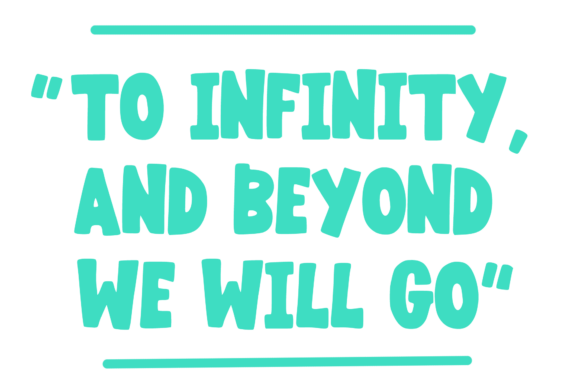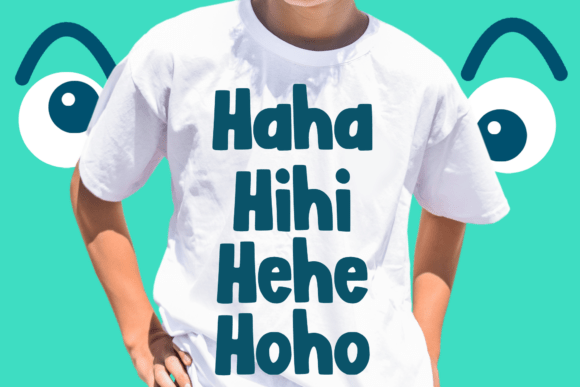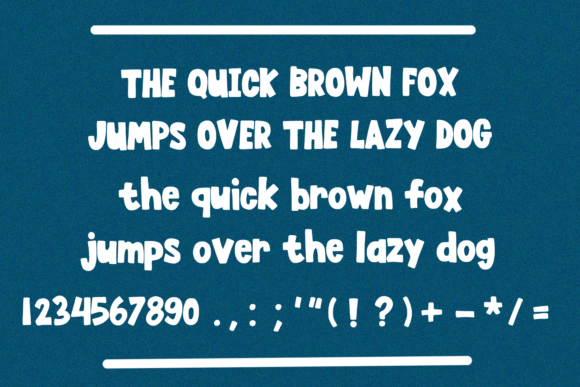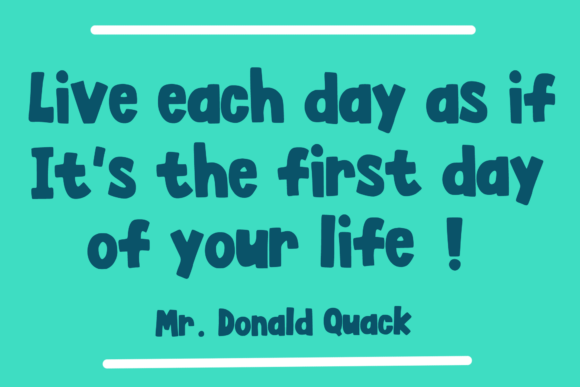
Introducing Chunky Joyful Font: The Ultimate Comic Handwritten Font for Designers and Crafters
Are you tired of using the same old fonts in your designs? Do you want to add a touch of playfulness and fun to your projects? Look no further than Chunky Joyful Font, a bold comic handwritten font that’s inspired by comics and cartoons. This exciting new font is perfect for designers and crafters who want to take their work to the next level.
What is Chunky Joyful Font?
Chunky Joyful Font is a fun, playful bold comic handwritten font that’s designed to bring a smile to your face. With its chunky, bold lines and joyful vibe, this font is perfect for creating eye-catching designs that grab attention. Whether you’re working on a sticker design, t-shirt design, merchandise design, logo design, or book cover, Chunky Joyful Font is the perfect choice.
Key Features of Chunky Joyful Font
- Bold and Chunky Lines: Chunky Joyful Font features bold, chunky lines that give it a playful and fun vibe.
- Comic Handwritten Style: Inspired by comics and cartoons, this font has a unique handwritten style that’s perfect for creating engaging designs.
- Versatile: Chunky Joyful Font can be used for a wide range of design projects, from stickers and t-shirt designs to logo designs and book covers.
- Easy to Read: Despite its bold and chunky lines, Chunky Joyful Font is easy to read, making it perfect for use in a variety of design projects.
Design Ideas with Chunky Joyful Font
So, what can you create with Chunky Joyful Font? The possibilities are endless! Here are some design ideas to get you started:
- Sticker Designs: Create fun and playful stickers with Chunky Joyful Font that are perfect for laptops, water bottles, or any other surface.
- T-Shirt Designs: Design eye-catching t-shirts with Chunky Joyful Font that’s perfect for kids and adults alike.
- Merchandise Designs: Create a range of merchandise, from tote bags to phone cases, with Chunky Joyful Font.
- Logo Designs: Use Chunky Joyful Font to create amazing logo designs that are bold, playful, and eye-catching.
- Magazine or Book Covers: Add a touch of playfulness to your magazine or book covers with Chunky Joyful Font.
- Comics and Cartoon Drawings: Create engaging comics and cartoon drawings with Chunky Joyful Font that’s perfect for kids and adults alike.
- Daily Typing: Use Chunky Joyful Font for daily typing, from social media posts to blog articles.
Why Choose Chunky Joyful Font?
So, why choose Chunky Joyful Font over other fonts? Here are just a few reasons:
- Unique Style: Chunky Joyful Font has a unique style that’s inspired by comics and cartoons, making it stand out from other fonts.
- High-Quality: Chunky Joyful Font is a high-quality font that’s designed to produce crisp, clear results.
In conclusion, Chunky Joyful Font is a fun, playful bold comic handwritten font that’s perfect for designers and crafters who want to add a touch of playfulness to their designs. With its bold and chunky lines, comic handwritten style, and versatility, Chunky Joyful Font is the perfect choice for a wide range of design projects. So why wait? Download Chunky Joyful Font today and take your designs to the next level!